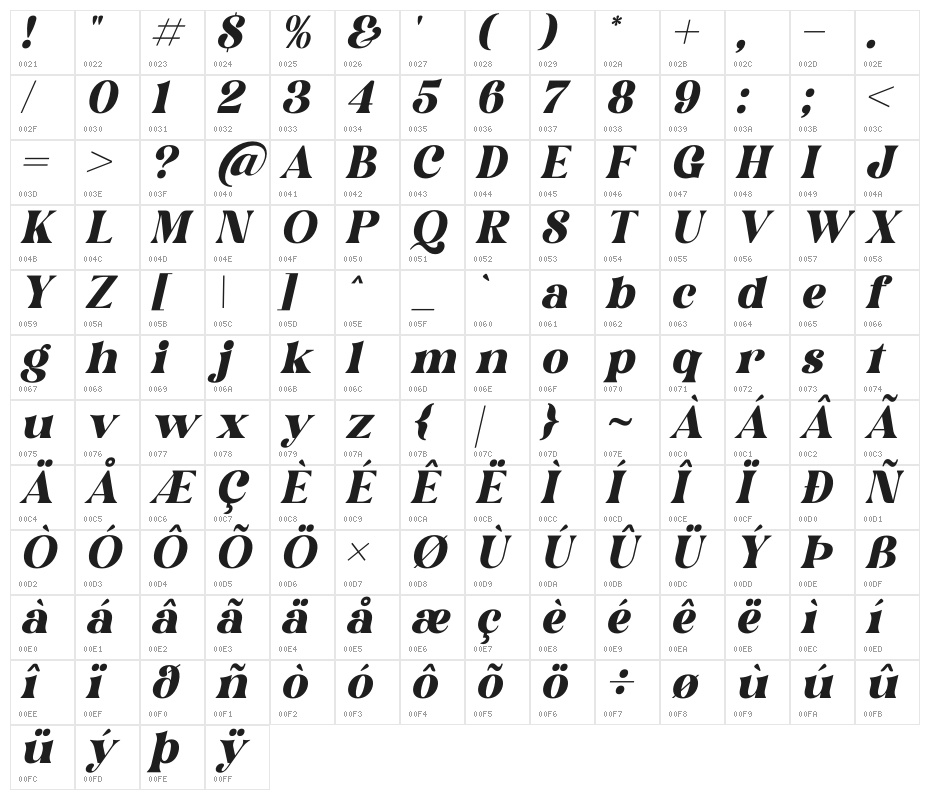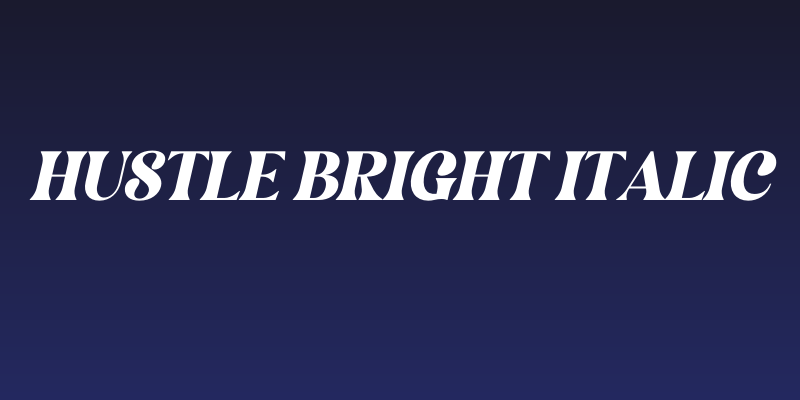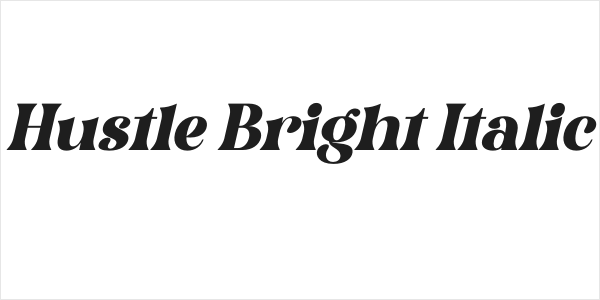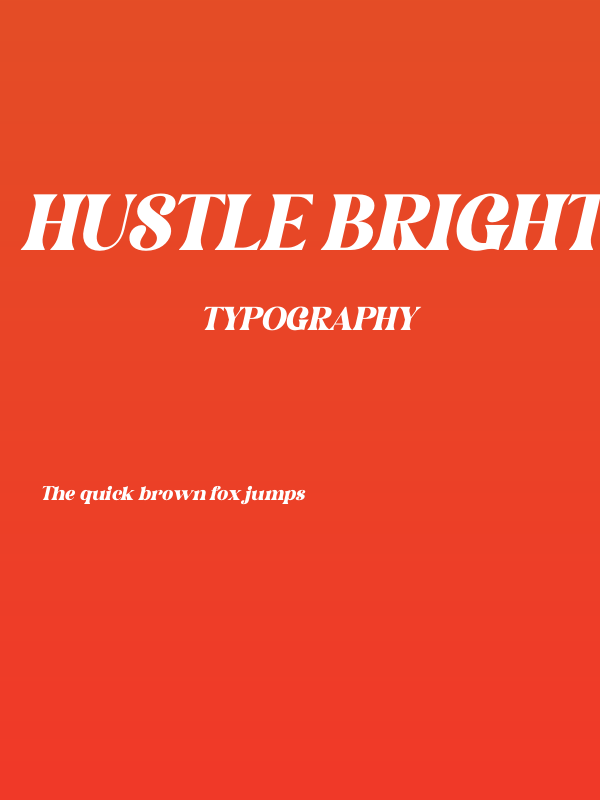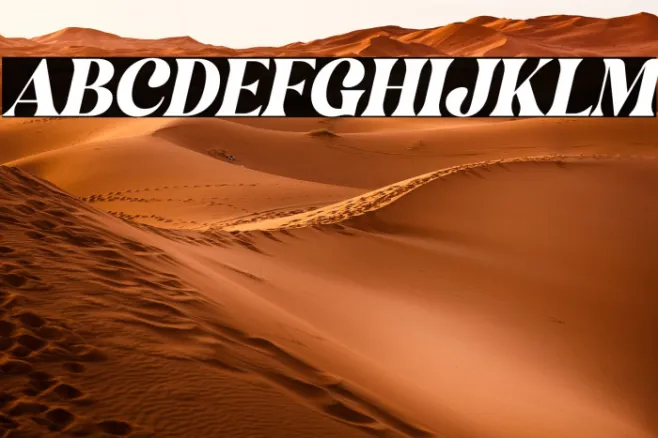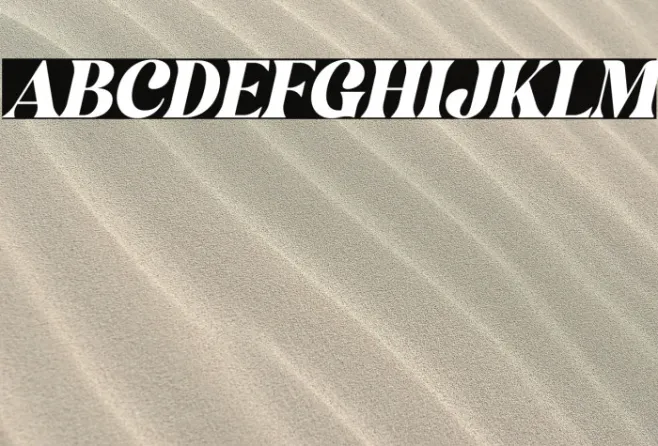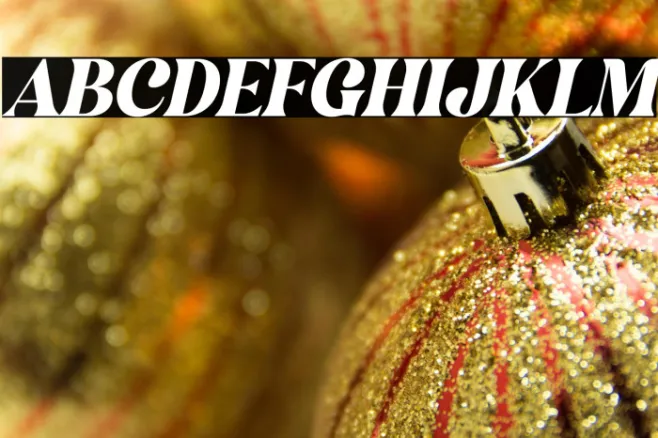
Hustle Bright Italic Font
Hustle Bright Italic Description
This font exudes a bold and dynamic presence with its italicized and serif style. The characters are sharply defined, featuring thick and thin strokes that create a high contrast, enhancing its dramatic flair. The uppercase letters stand tall with a slight forward slant, while the lowercase letters maintain a consistent flow, adding to the font's elegance. Numbers and special characters are crafted with the same attention to detail, ensuring a cohesive look across all text. The overall design is both classic and modern, making it versatile for various applications.